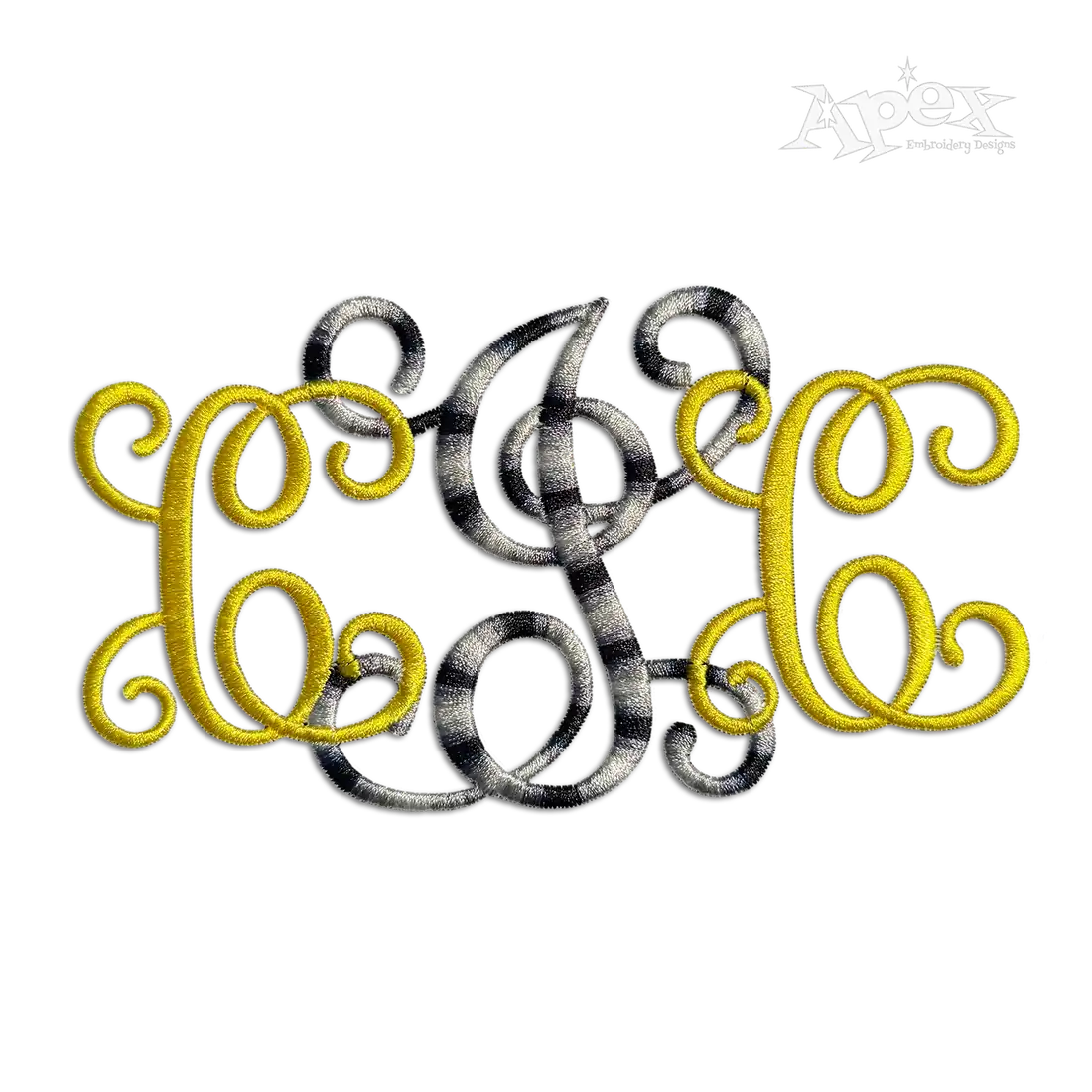
Vine Alternative Interlocking Monogram Embroidery Font
Born from a reverence for timeless Southern heraldry and European botanicals, the Vine Alternative Interlocking Monogram Embroidery Font breathes fresh architectural grace into a cherished tradition. We digitized this alphabet to capture the effortless fluidity of winding garden tendrils, balancing delicate flourishes with strong, legible letterforms. Unlike conventional script monograms that can quickly feel congested, this alternative interpretation honors negative space, allowing the graceful curves of flanking initials to nestle seamlessly against the central letter. The result is an opulent, jewelry-like crest that stitches with pristine clarity, instantly elevating any piece from ordinary textile to cherished family heirloom.
Vine Alternative Interlocking Monogram Craft & Letterform Details
Digitizing an interlocking monogram requires a meticulous mathematical approach beneath its artistic exterior. In this alternative vine edition, every intersecting vine, serif, and tail has been plotted with intelligent layering sequences. By mapping stitch pathways so the under-and-over weaving of letters appears three-dimensional, we have eliminated the unsightly bulk and thread collisions common in inferior conversions.
The satin columns are crafted with tailored underlay networks?pairing longitudinal travel stitches with subtle zig-zag anchors to gently prep the textile before the top sheen is laid down. This dual-action foundation preserves crisp edge definitions, prevents fabric push-pull distortion, and ensures that the silky satin stitches glide gracefully over woven linens, structured piqu?s, and plush terry cloths alike. The variable satin widths taper effortlessly into feather-soft endpoints, catching ambient light with diamond-bright radiance.